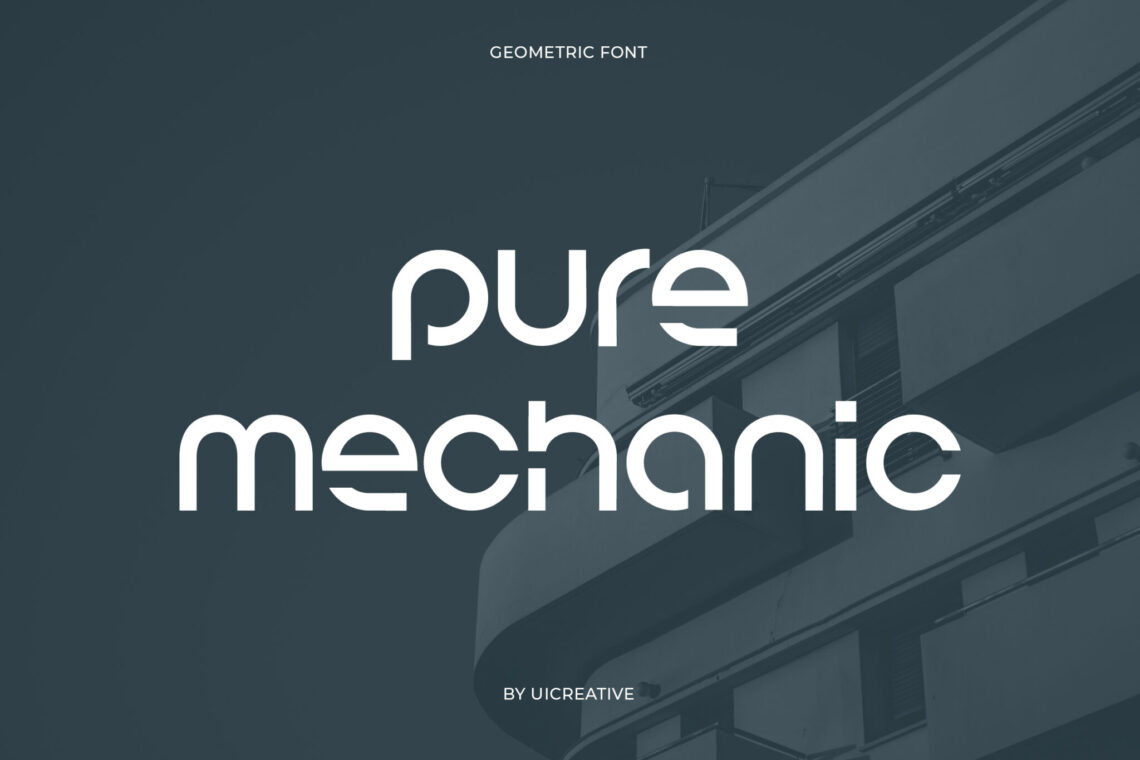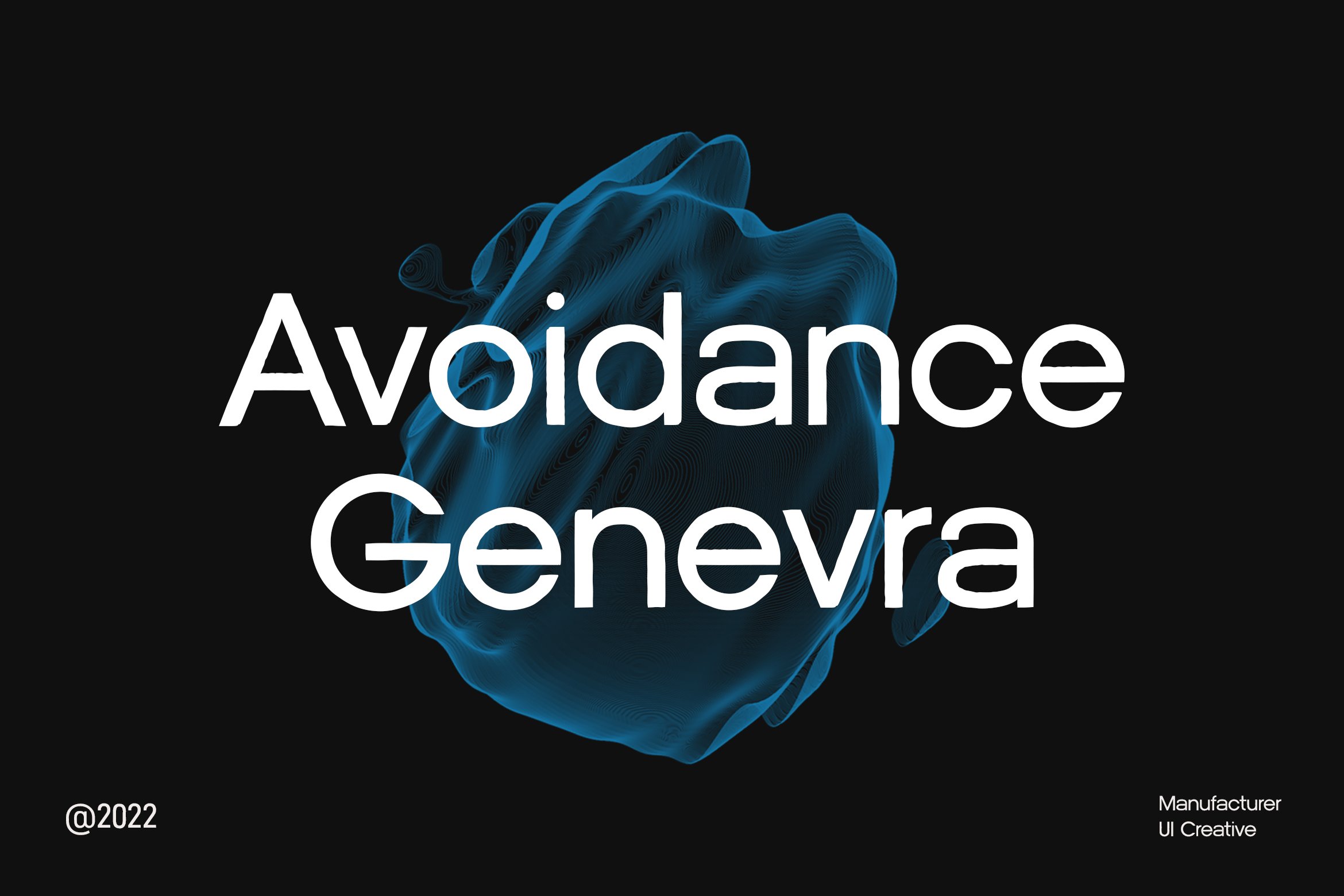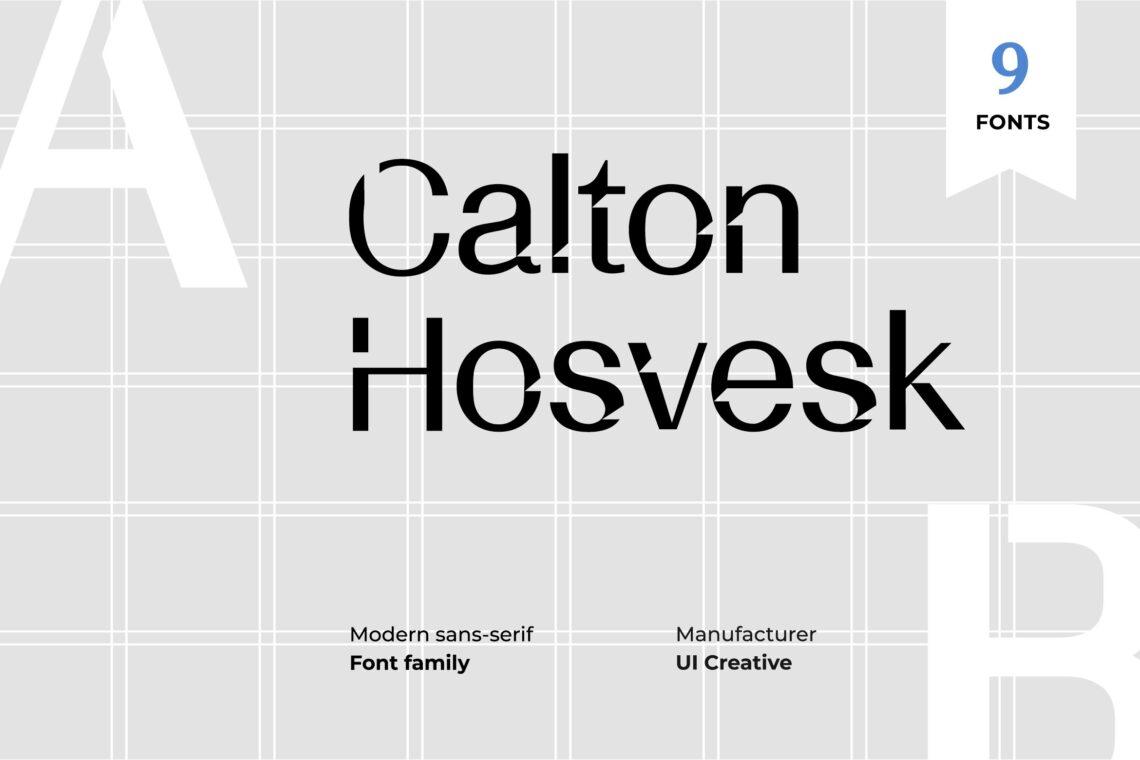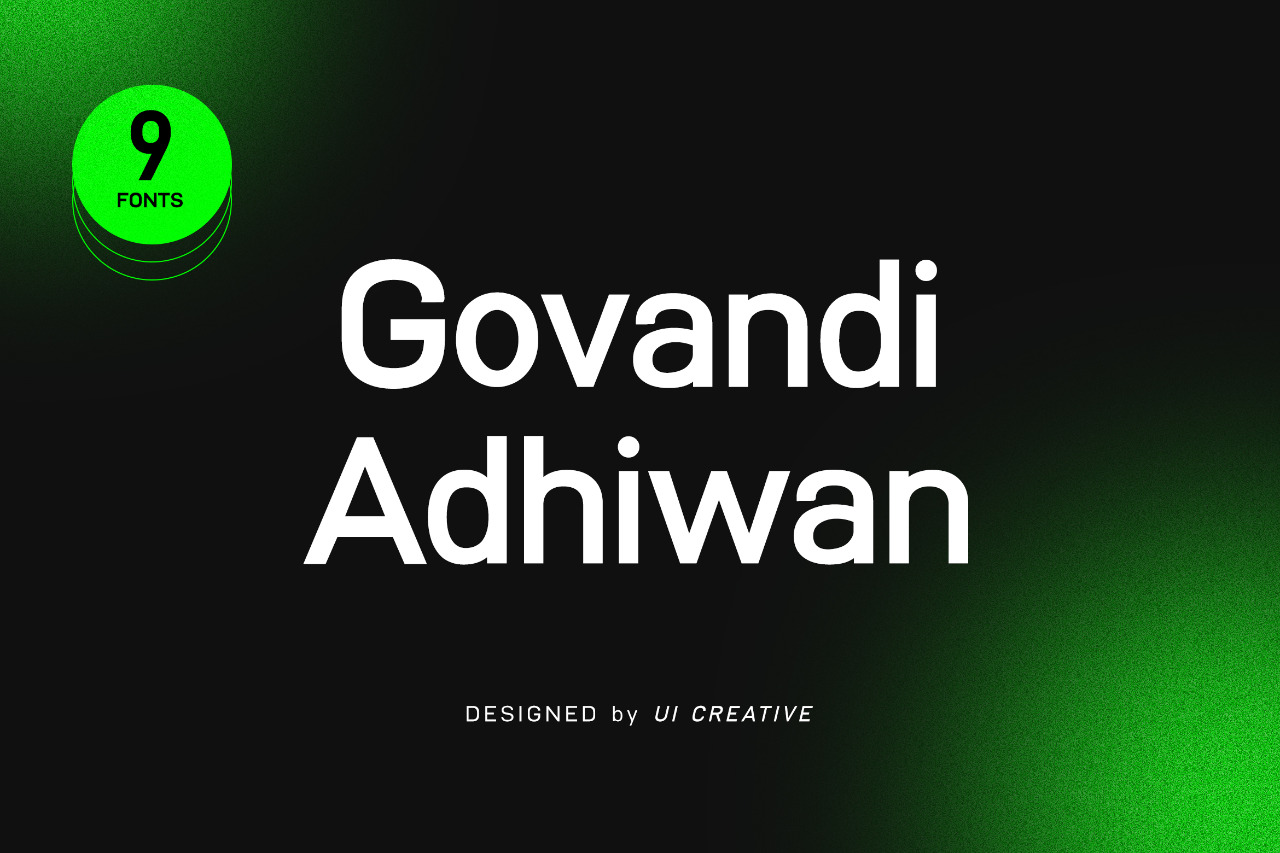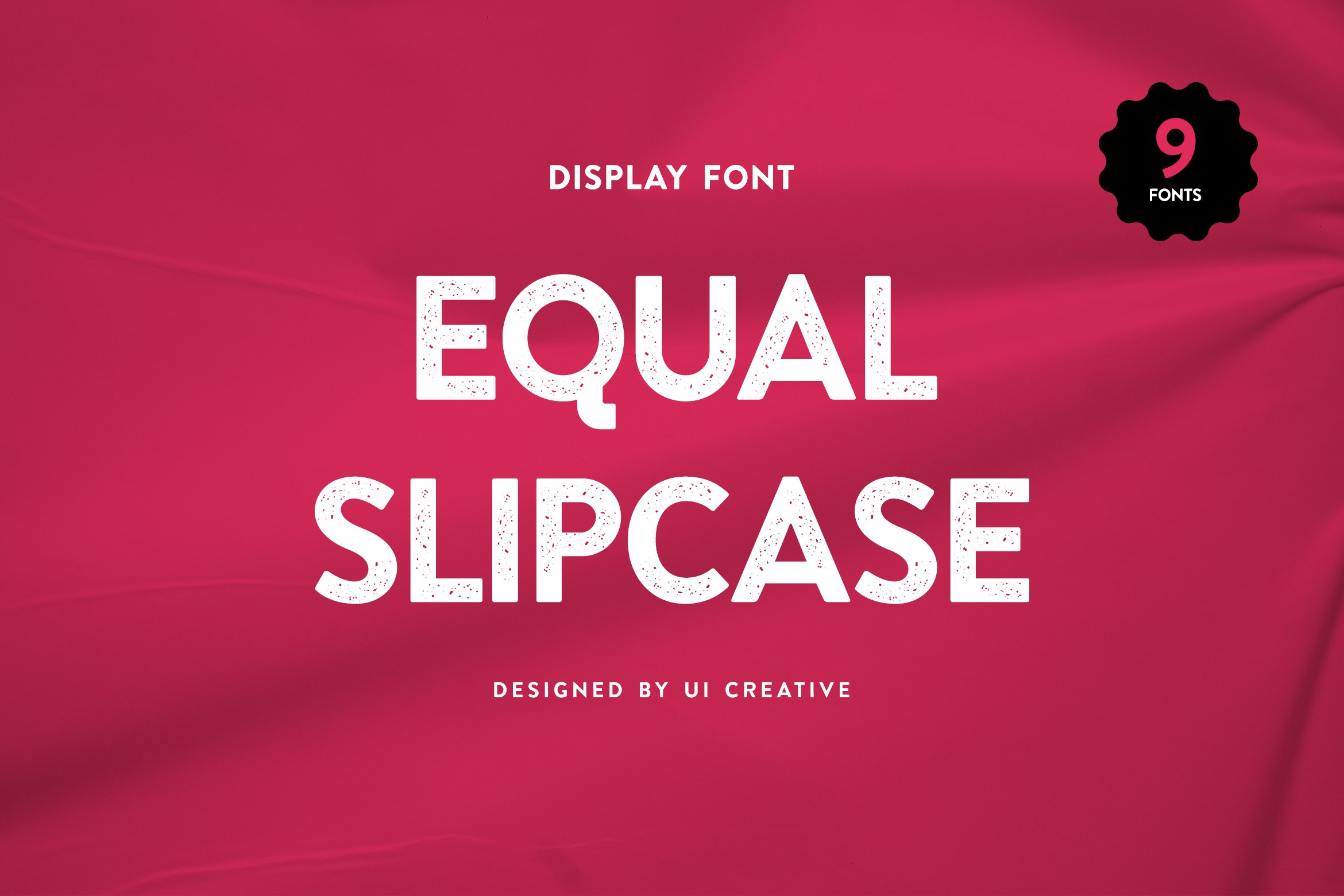
15 Best Modern Sans Serif Fonts 2025
In the world of typography, sans serif fonts continue to dominate, offering a clean and minimalist aesthetic that works perfectly in digital and print design. As we move into 2025, modern sans serif fonts are evolving with more versatility, providing both legibility and style for various design purposes. Whether crafting a logo, designing a website, or creating a product brochure, choosing the right font can make all the difference. In this article, we’ll explore the modern sans serif fonts 2025 that are set to dominate the design scene, ensuring your projects stand out with sophistication and clarity.
15 Best Modern Sans Serif Fonts 2025
Here are the 15 best modern sans serif fonts 2025 for you:
1. Mondapick Sans Serif Font Family
The Mondapick Sans Serif Font Family is a sleek and modern typeface designed to provide a clean, minimalist aesthetic with a professional and contemporary feel. Perfect for a wide range of design projects, from branding and advertising to websites and editorial design, Mondapick offers a versatile set of weights and styles, making it ideal for both headers and body text.
Its smooth lines and balanced proportions enhance readability while maintaining a sophisticated presence. Whether you’re looking to create an impactful design or a subtle, refined look, the Mondapick Sans Serif Font Family is your go-to choice for a polished, modern type solution.
2. Lovely Jackie Sans Serif Font
Lovely Jackie Sans Serif Font is a charming and elegant typeface that combines modern simplicity with a touch of warmth. Perfect for projects that require a friendly, approachable aesthetic, this font features clean, rounded lines and smooth curves, making it highly legible and visually appealing. Whether you’re designing branding, invitations, websites, or print materials, Lovely Jackie brings a sense of playfulness and sophistication.
Its versatility across different weights and styles allows for seamless integration into various design projects, making it an excellent choice for both professional and casual applications. Ideal for adding a bit of personality to your designs, Lovely Jackie is a must-have for any modern typographic collection.
3. Kinder Child Sans Serif Font
Kinder Child Sans Serif Font is a playful and friendly typeface designed with young audiences in mind. With its rounded edges and soft, approachable lines, this font exudes warmth and charm, making it perfect for children’s books, educational materials, toys, and anything aimed at a youthful demographic.
The clean, sans-serif design ensures readability, while the lighthearted character adds a fun touch to any project. Whether you’re designing posters, websites, or branding for kids’ products, Kinder Child brings an inviting and whimsical feel, making it an ideal choice for creating engaging and kid-friendly designs.
4. Hyperion Sans Serif Modern Font
Hyperion Sans Serif Modern Font is a sleek and bold typeface designed for contemporary and forward-thinking projects. With its clean, sharp lines and minimalist aesthetic, this font combines modern sophistication with high legibility, making it perfect for a wide range of applications, from branding and advertising to websites and digital media.
Its balanced proportions and geometric style create a strong, confident presence, while maintaining a professional and polished look. Whether you’re designing for tech, fashion, or corporate brands, Hyperion Sans Serif Modern Font brings a cutting-edge, stylish touch to any project that demands attention and clarity.
5. Bloody Sunday Sans Serif Font
Bloody Sunday Sans Serif Font is a bold and striking typeface that blends modern sans-serif design with a unique, edgy flair. With its sharp lines and strong presence, this font commands attention and is perfect for projects that aim to make a bold statement. Whether you’re creating posters, branding materials, music album covers, or edgy editorial designs, Bloody Sunday delivers a sense of rebellious energy and drama. Its clean and solid letterforms maintain readability while injecting personality and intensity into any design, making it an ideal choice for daring and impactful visual projects.
6. Antolia Buchery Modern San Serif Font
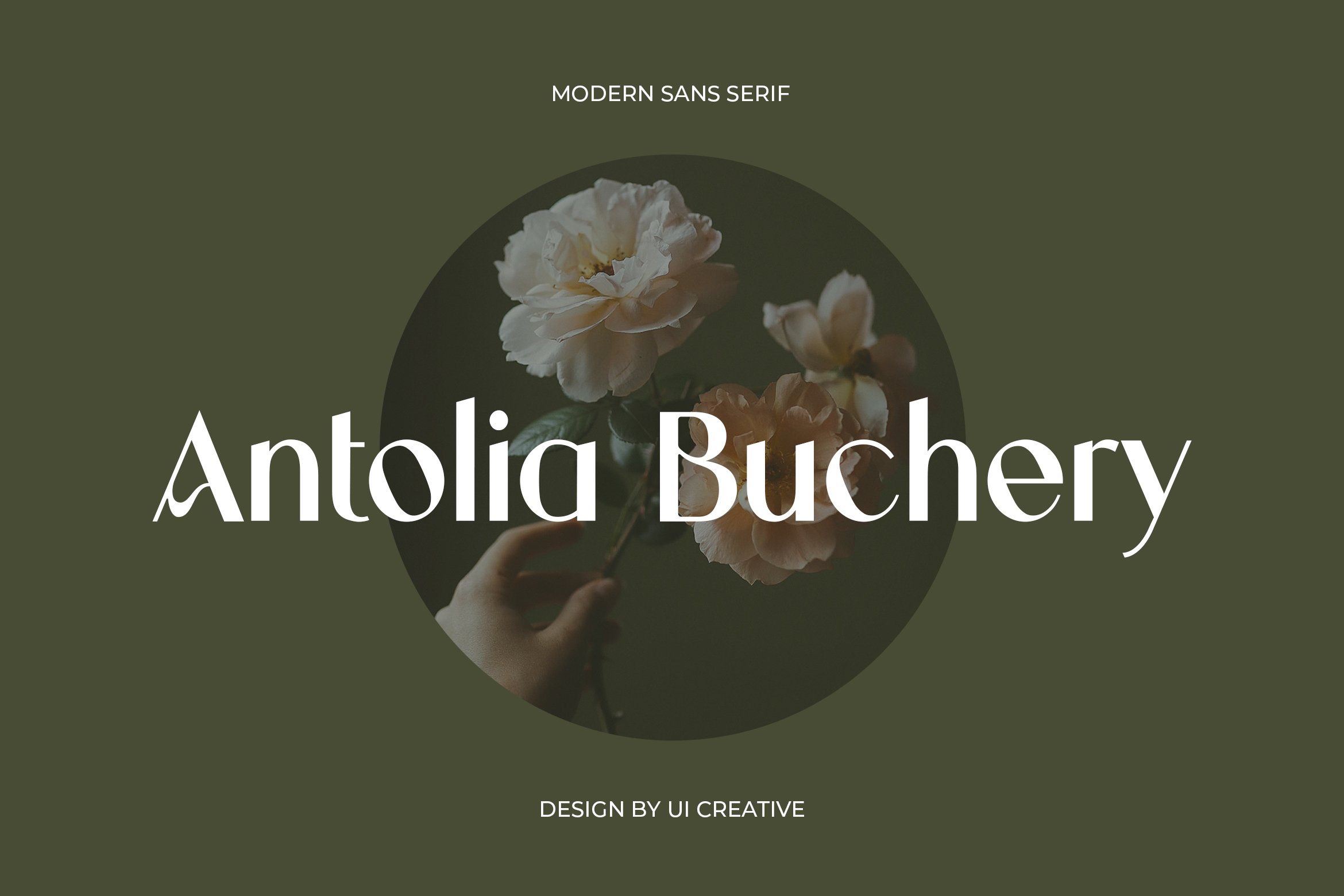
Antolia Buchery Modern Sans Serif Font is a sleek, sophisticated typeface designed with contemporary elegance in mind. With its clean lines and geometric structure, this font brings a refined, minimalist look to any project. Perfect for modern branding, websites, editorial design, or fashion materials, Antolia Buchery combines versatility and style, making it suitable for both headlines and body text. Its precise, balanced letterforms offer excellent readability while maintaining a high-end, polished feel. Ideal for projects that require a modern, professional aesthetic, this font elevates any design with its fresh and dynamic energy.
7. Valko Capela Futuristic Sans Serif Font
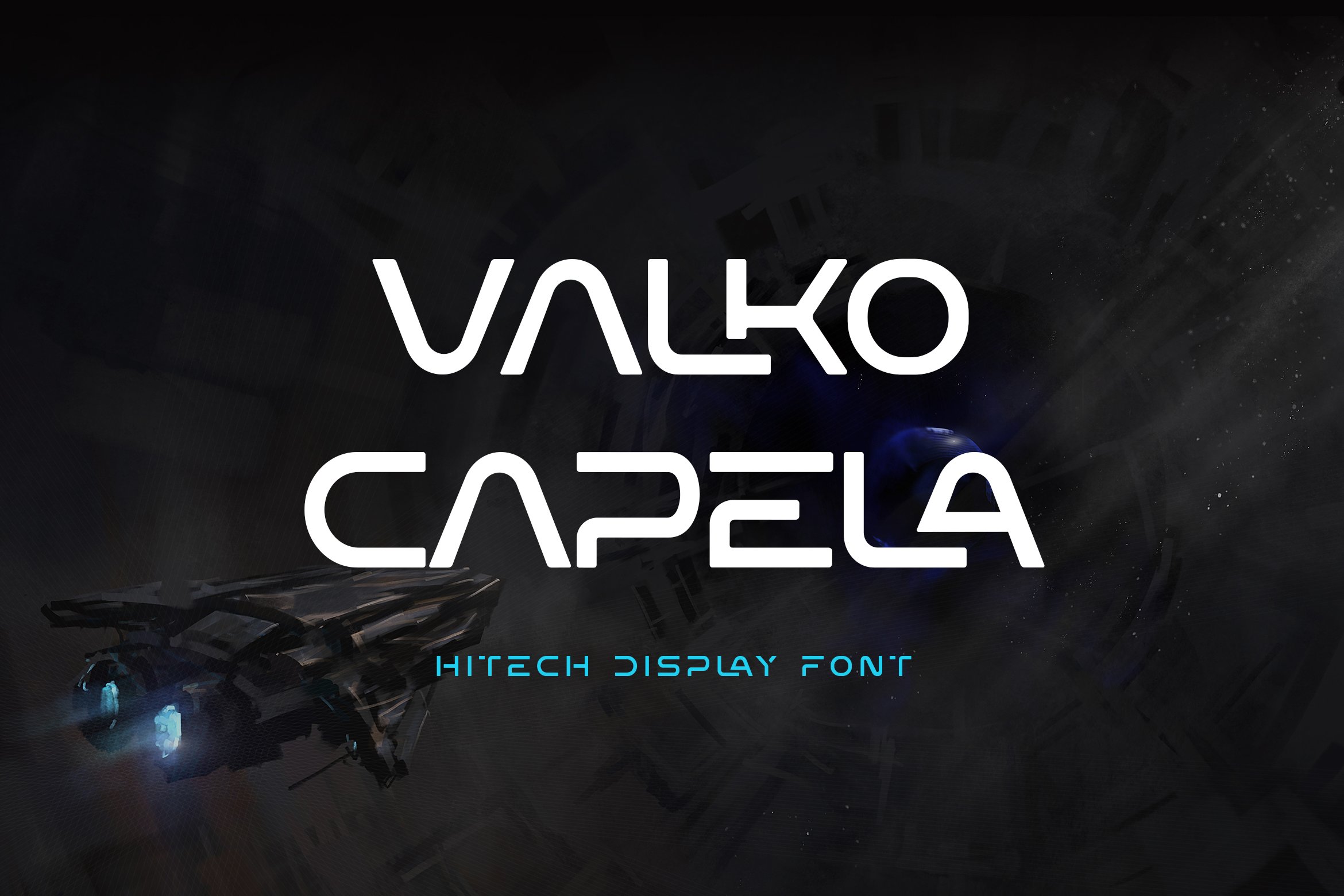
Valko Capela Futuristic Sans Serif Font is a sleek, cutting-edge typeface designed to evoke a sense of innovation and forward-thinking style. With its sharp, angular letterforms and geometric precision, this font brings a bold, futuristic look to any design. Perfect for tech branding, digital media, sci-fi themes, or any project that aims to push boundaries, Valko Capela combines modern minimalism with a high-tech vibe. Its clean lines ensure excellent readability, while the unique structure adds a distinctive, eye-catching element. Ideal for futuristic projects or contemporary designs, this font will give your work an elevated, modern edge.